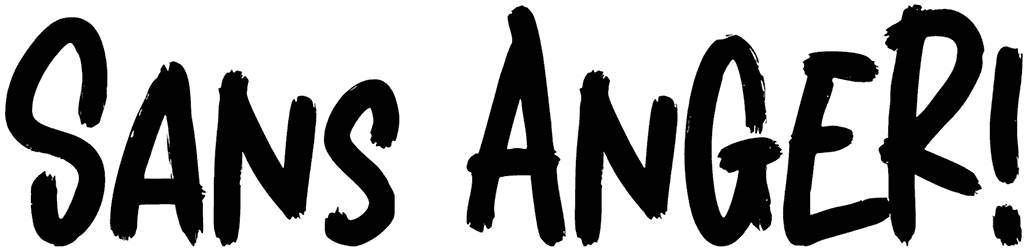
Eclipse Font
Eclipse is a brush font that is retro, bold, natural, and casual. It comes with both uppercase and lowercase letters but there are no numbers or punctuation in the character collection.
At times when you want to give off natural and informal vibes use Eclipse and it will work wonders. You can use it in movie posters, books, flyers, and so on.
This is messy and chaotic. A font of disorder. Eclipse!
With the use of an old round brush and textile ink, we produced a detailed look of another raging font.
Designed by: The Branded Quotes